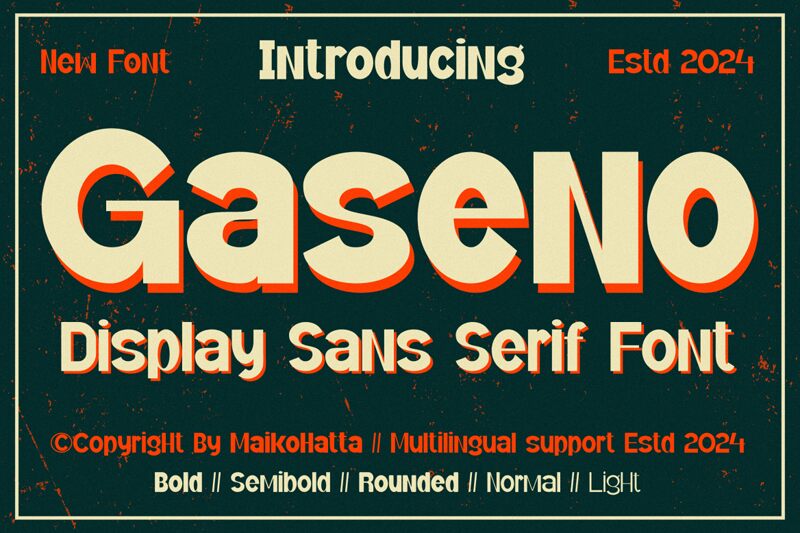
Gaseno Rounded font family designed by Gilang Ternadho is a collection of 10 free modern and geometric fonts. This sans serif typeface combines the perfect mix of round and straight characters resulting in a clean, easy, and soothing-on-the-eye text. Simple and free of distractions, the harmonious characters of Gaseno can still be impactful when used with the right colors, in the right context.
Working well in long texts and short, the font can be featured in book and magazine texts, brochures, articles, apps, websites, and more. If larger and more noticeable pieces are what you are after, Gaseno suits titles in posters, billboards, shop banners, packages, logos, and even official documents.